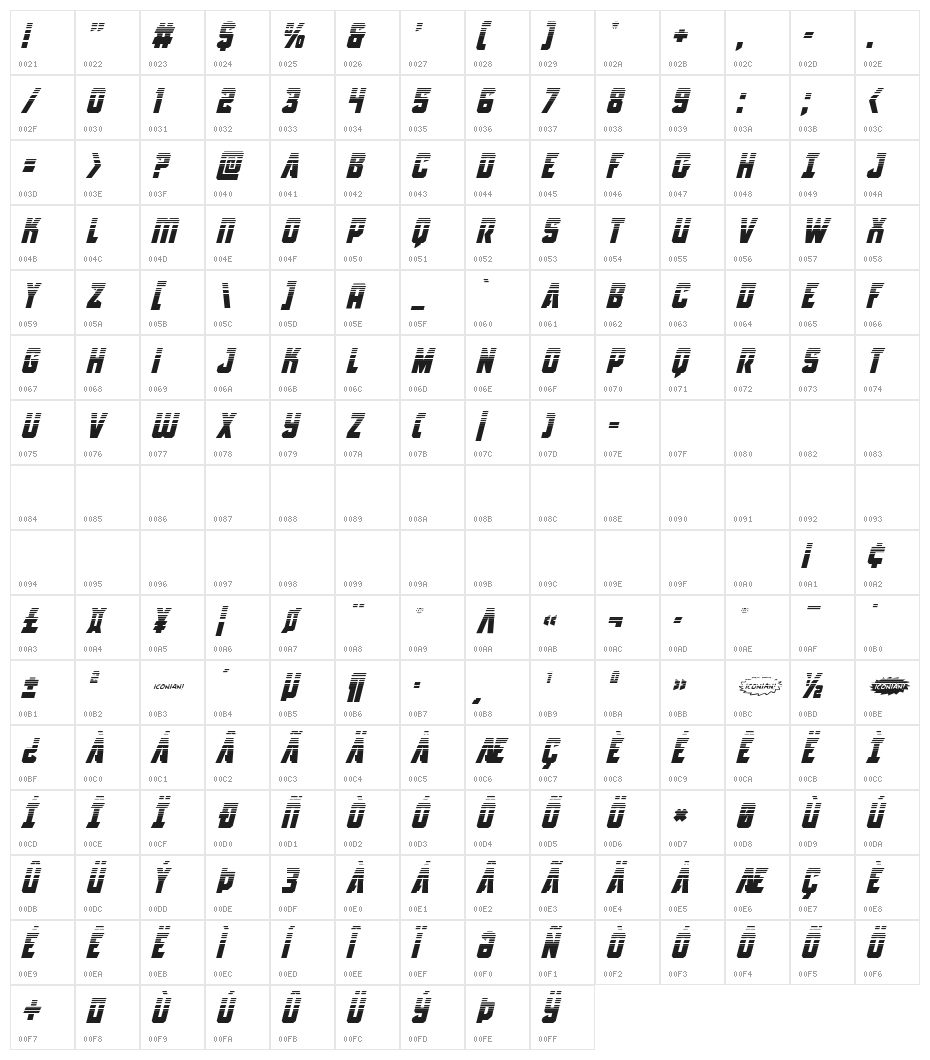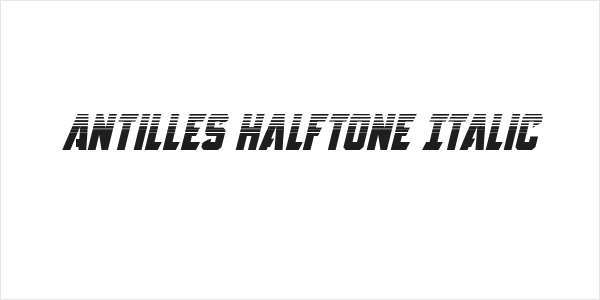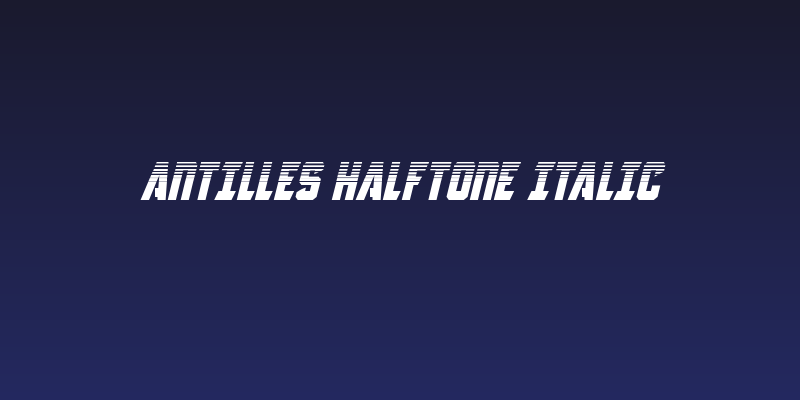
Antilles Halftone Italic Font
Antilles Halftone Italic Description
This font features a bold, italicized style with a distinctive halftone effect that creates a dynamic and eye-catching appearance. The uppercase and lowercase letters are designed with a strong geometric structure, and the halftone lines add a sense of movement and modernity. The numbers and special characters maintain this aesthetic, ensuring consistency across all glyphs. The overall design is both futuristic and retro, making it suitable for projects that require a bold statement.